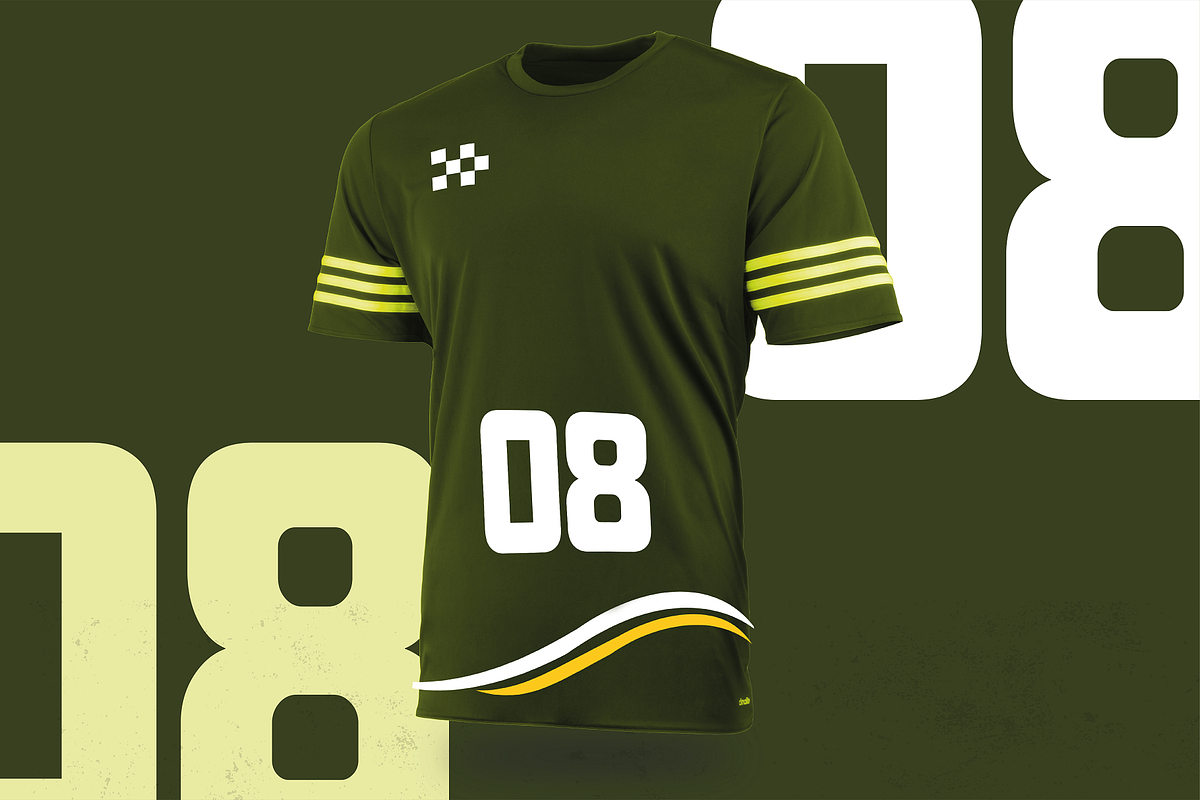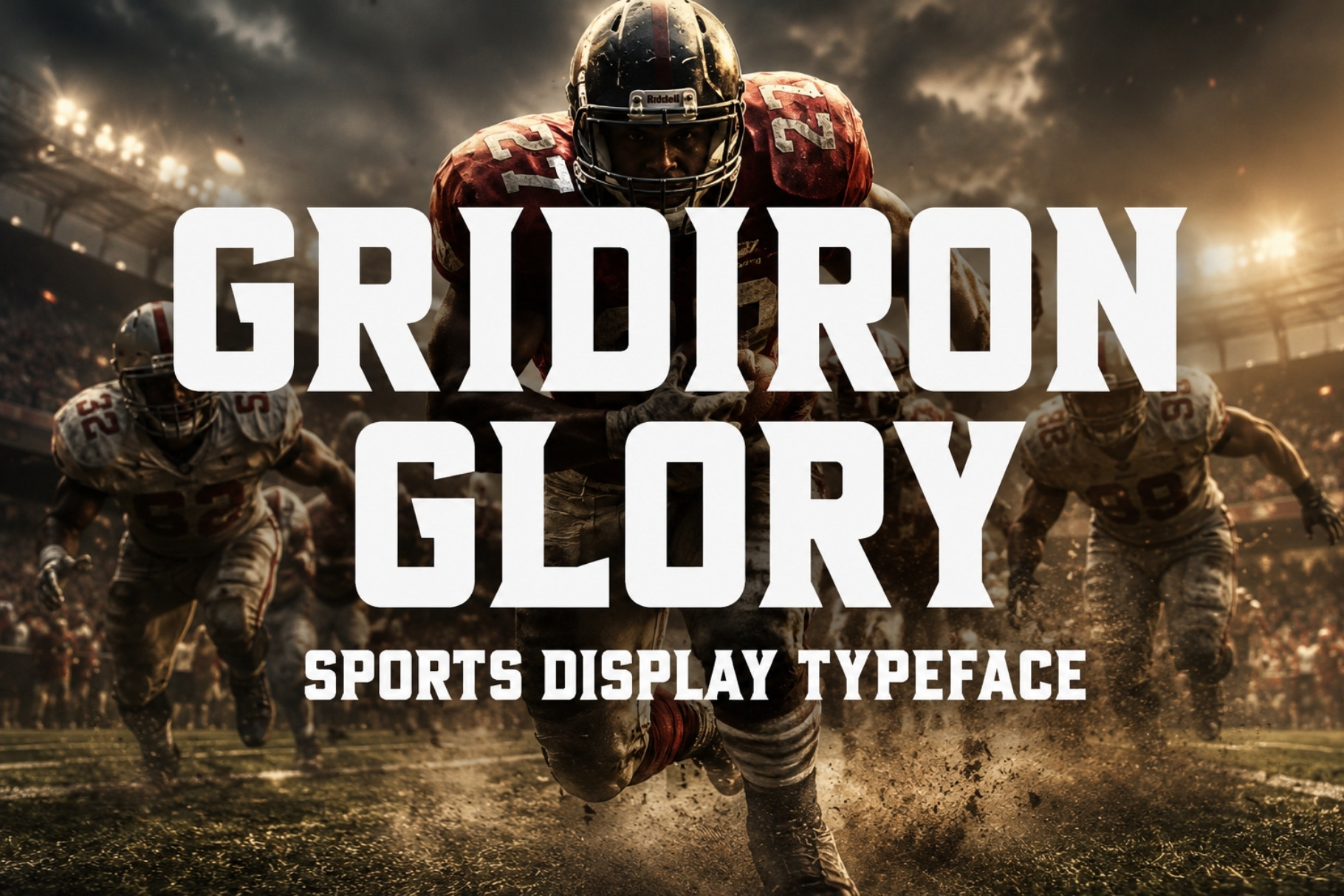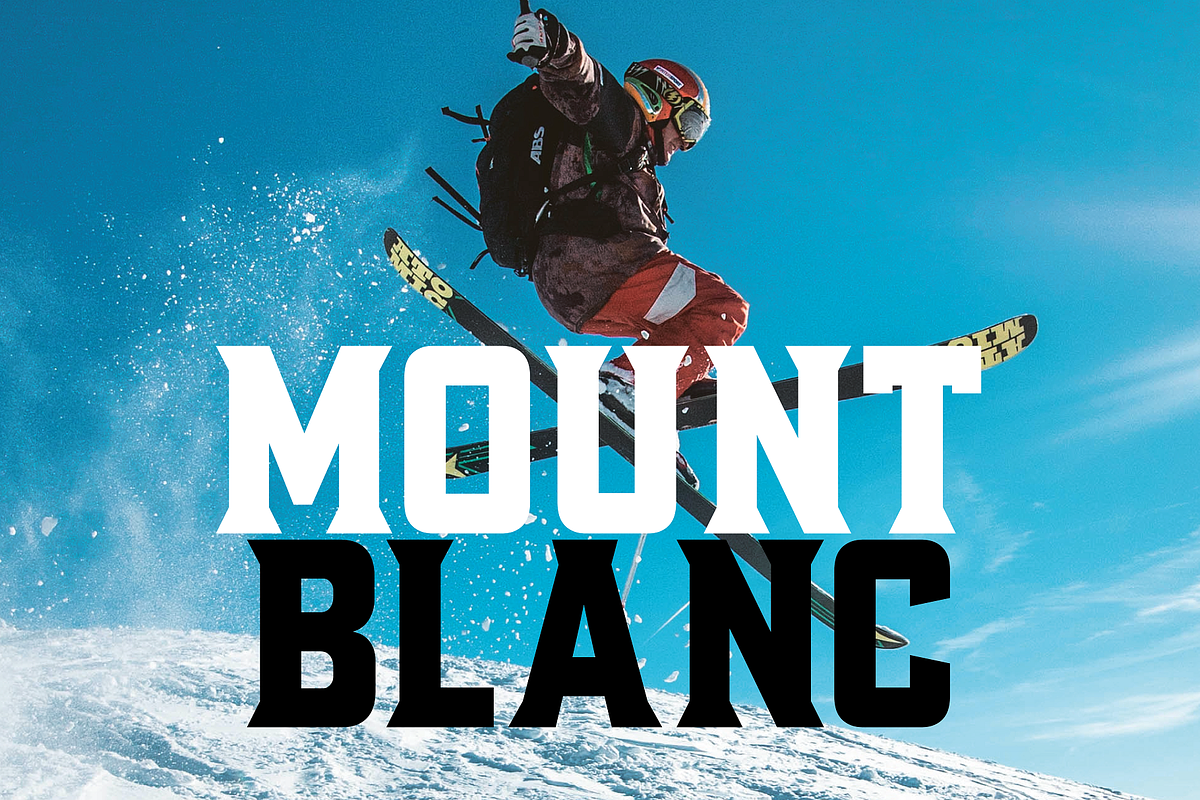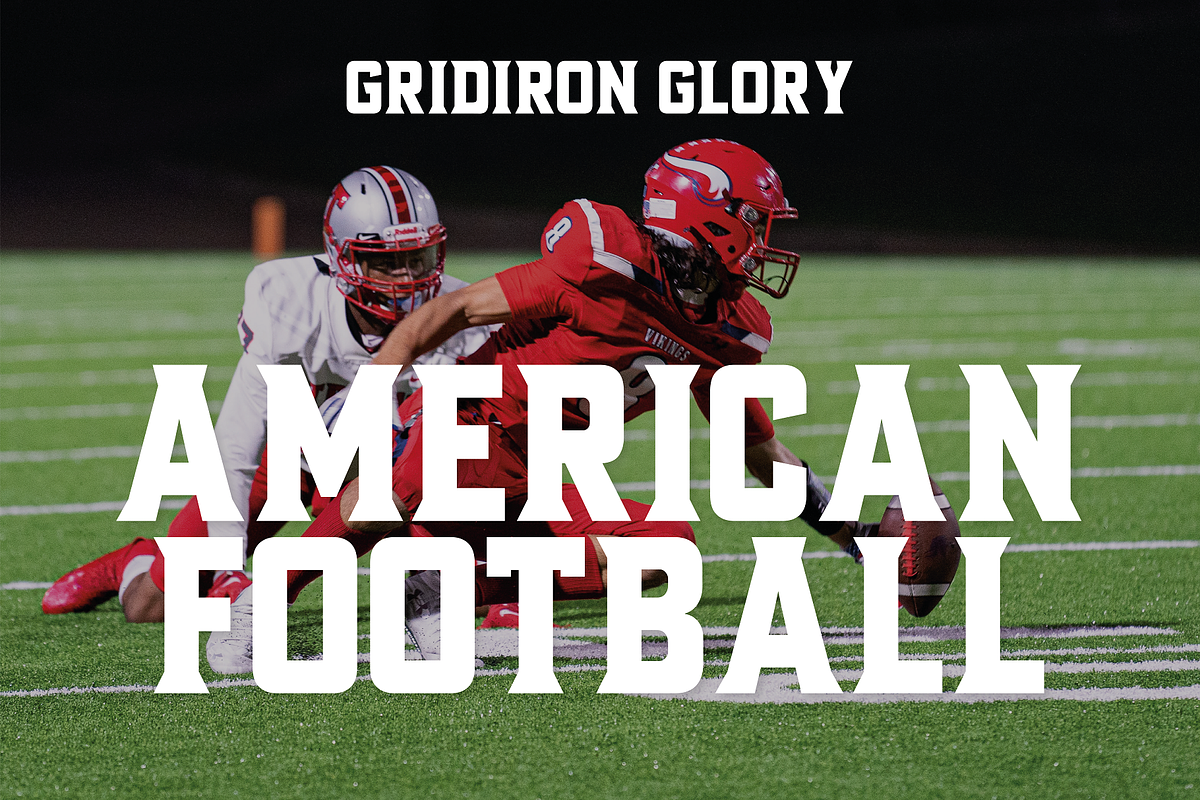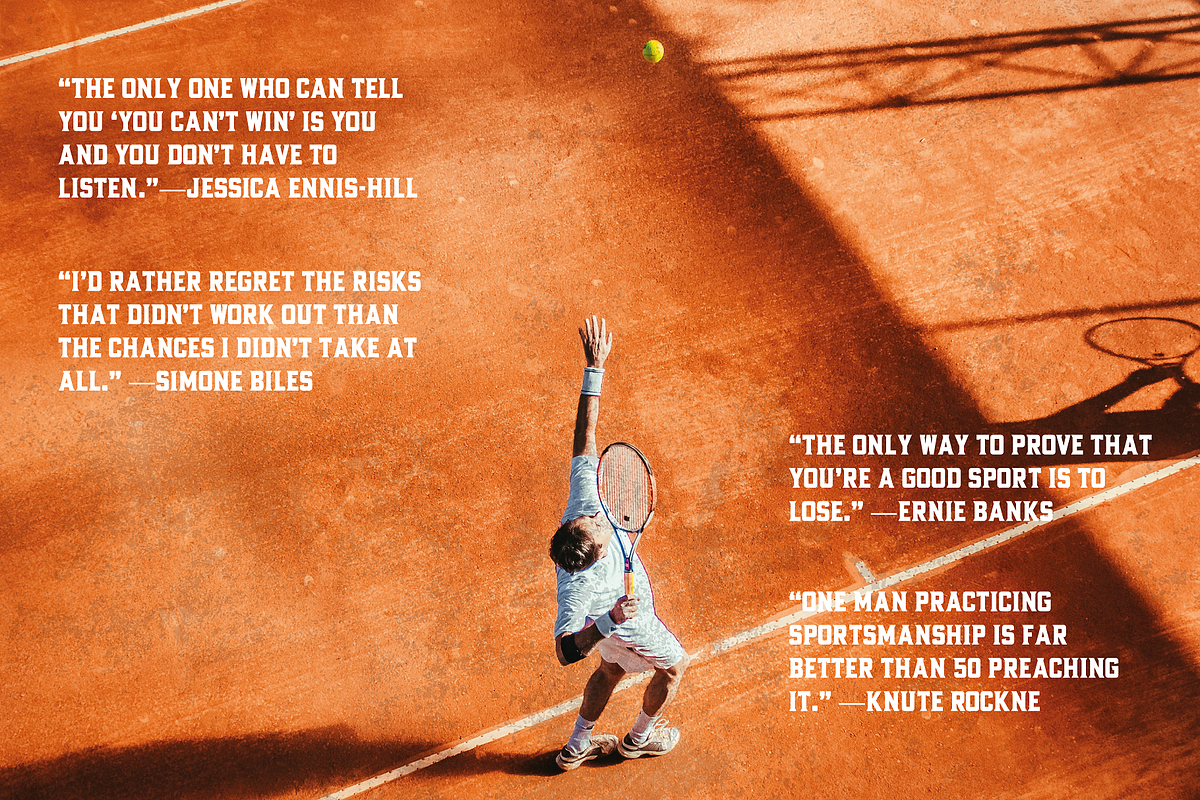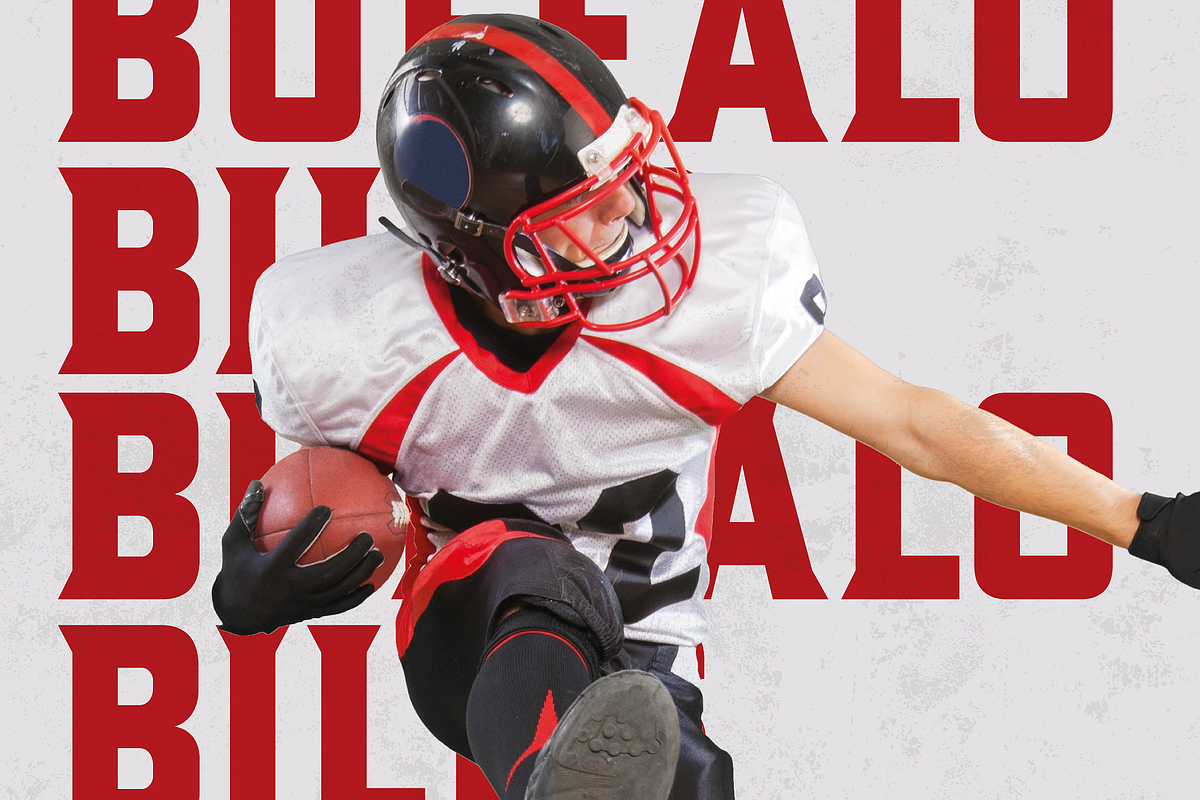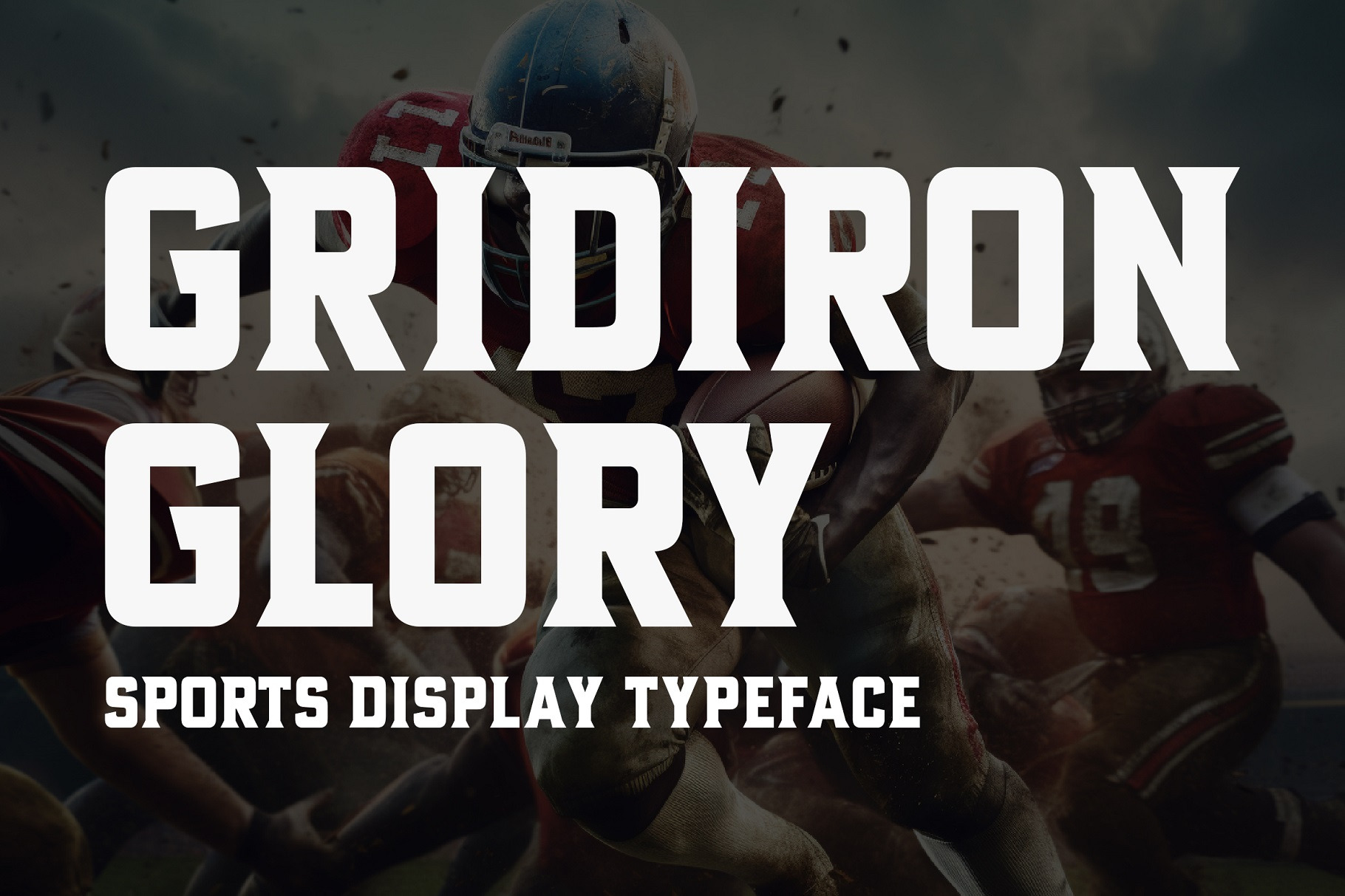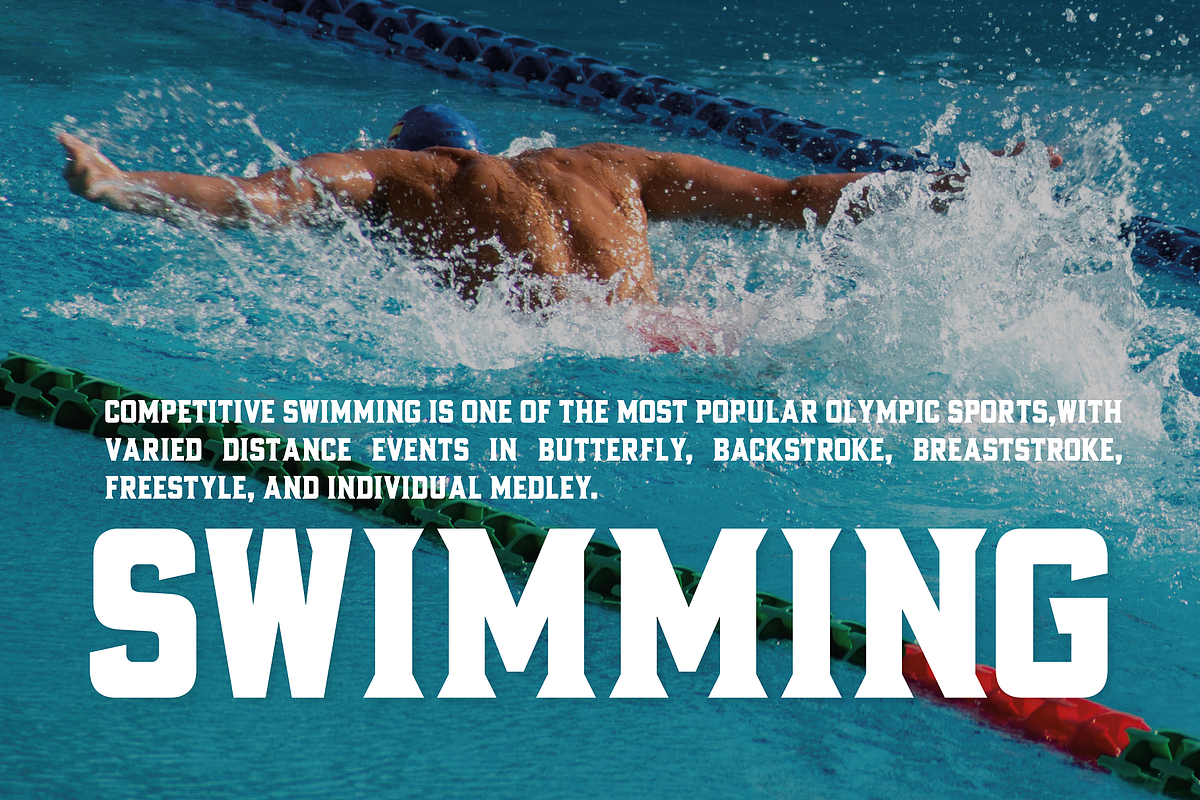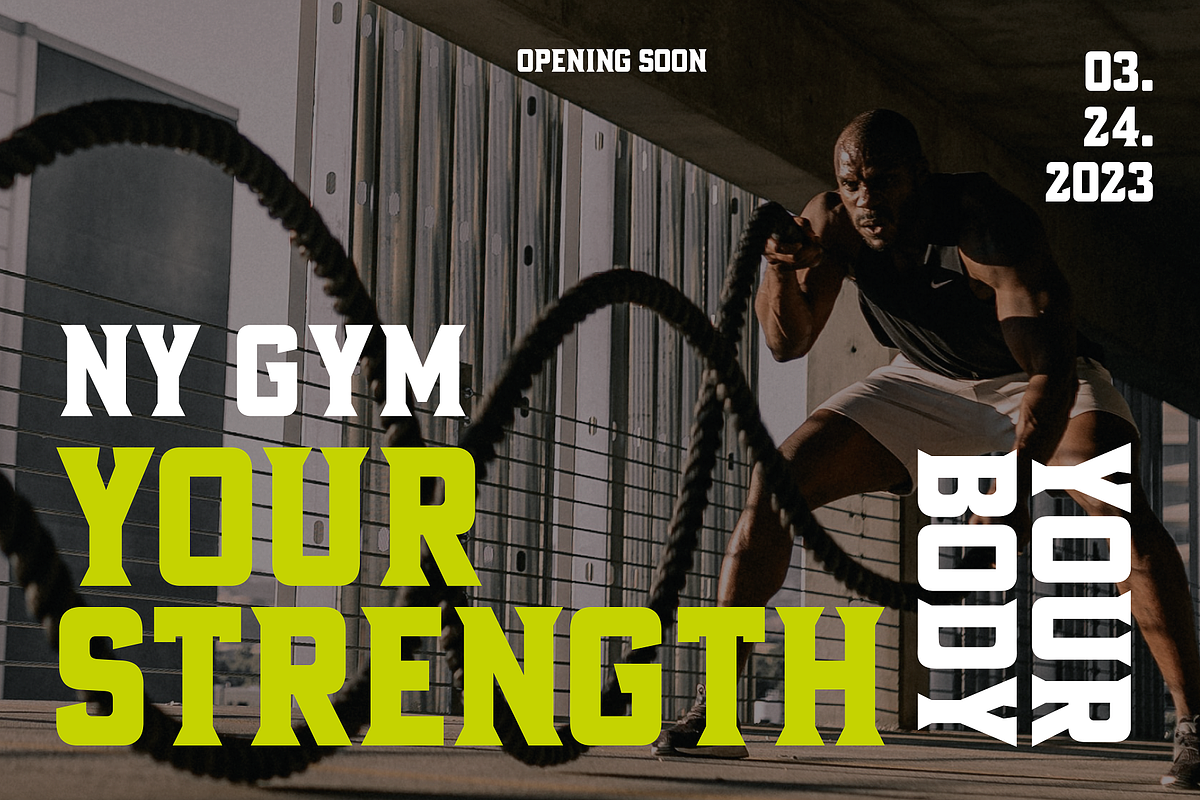
Gridiron Glory - Sport Typeface
Gridiron Glory is a modern and elegant font that stands tall as a tribute to the world of sports. This dynamic display typeface captures the power and energy of athletic competition with its strong, bold letterforms and sharp angles.
Inspired by the lines and precision of a football field, Gridiron Glory exudes a sense of strength and determination. Its clean and structured design, reminiscent of a gridiron play, brings a sense of order and professionalism to sports-related designs.
Whether used for team logos, jerseys, or sports event promotions, Gridiron Glory makes a bold statement and evokes a sense of excitement and anticipation. Embrace the spirit of the game with this font that embodies the glory and fierce competition found on the field.